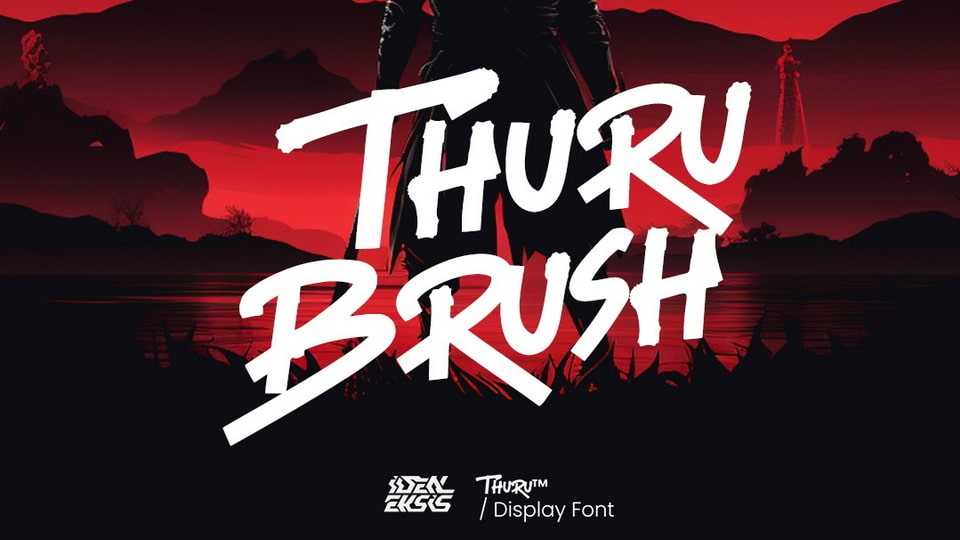
Download Thuru Brush font, a bold hand painted brush typeface that ignites your designs with a fierce burst of energy and creativity. Thuru Brush font boasts a powerful and vibrant design, with each letter exuding a sense of dynamic movement.
Designer: Ideal Eksis